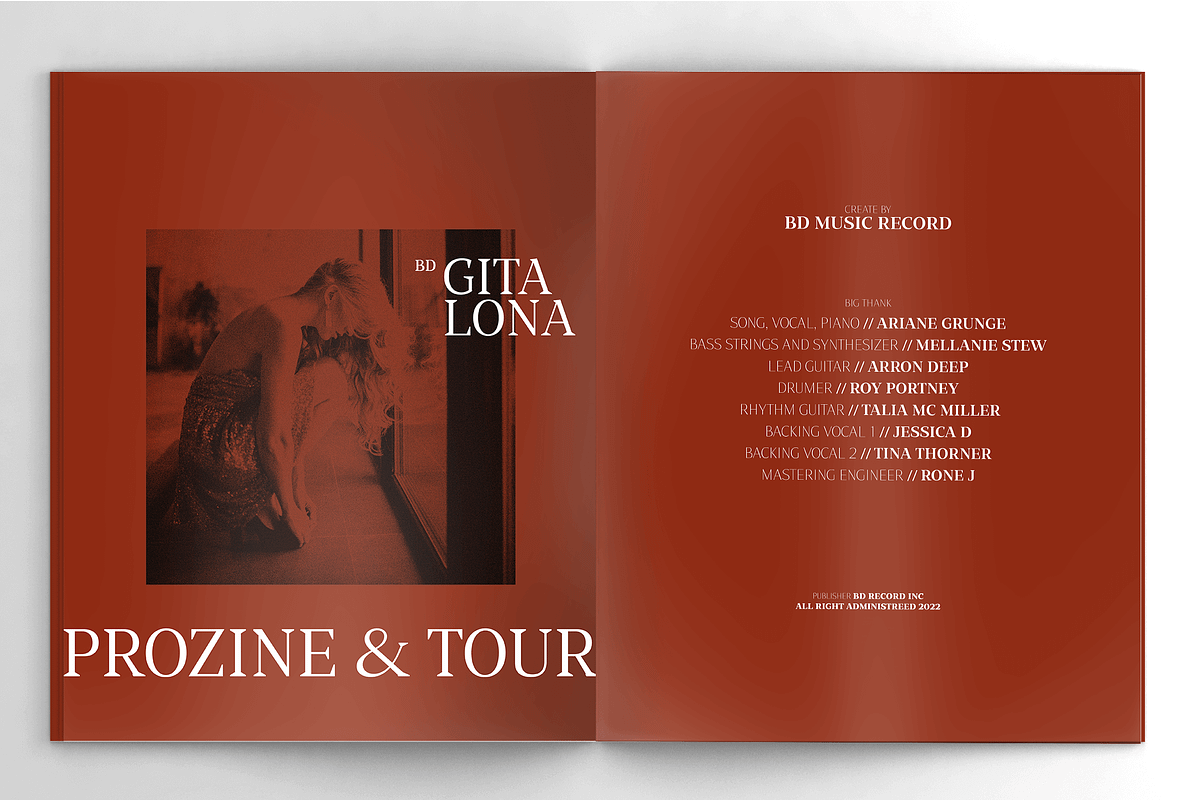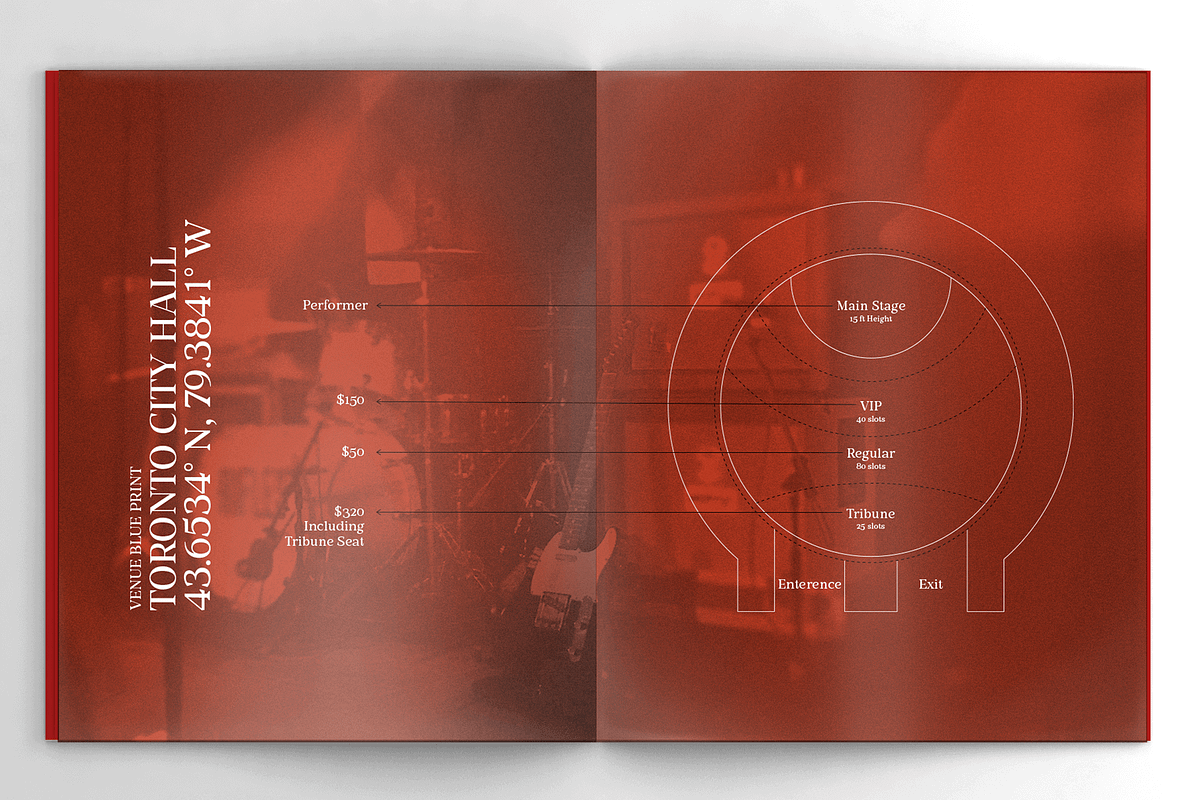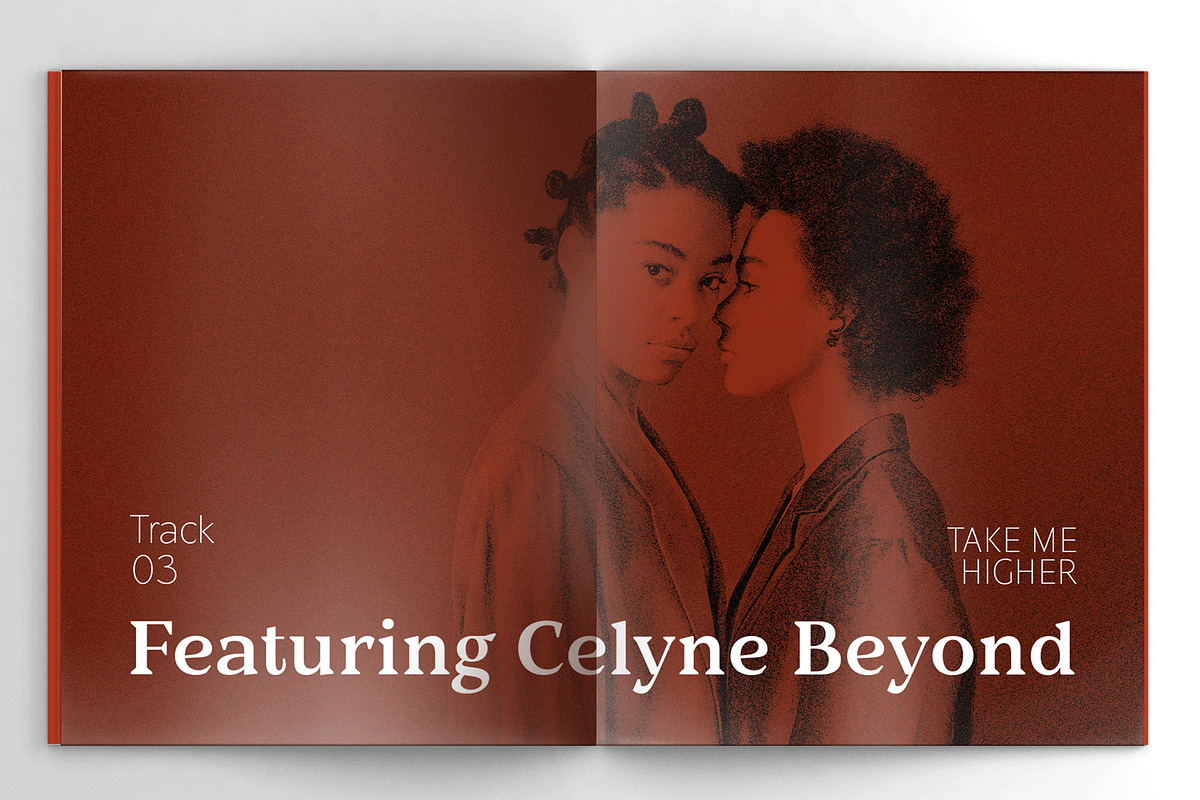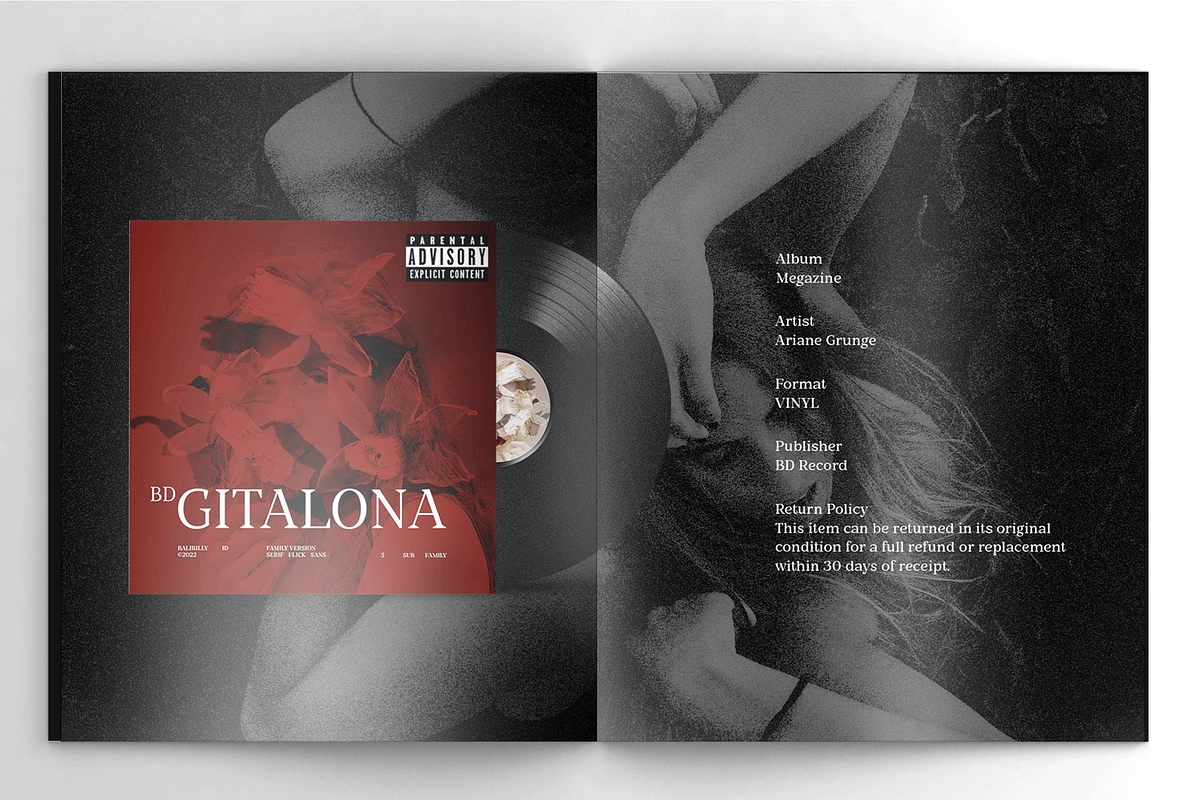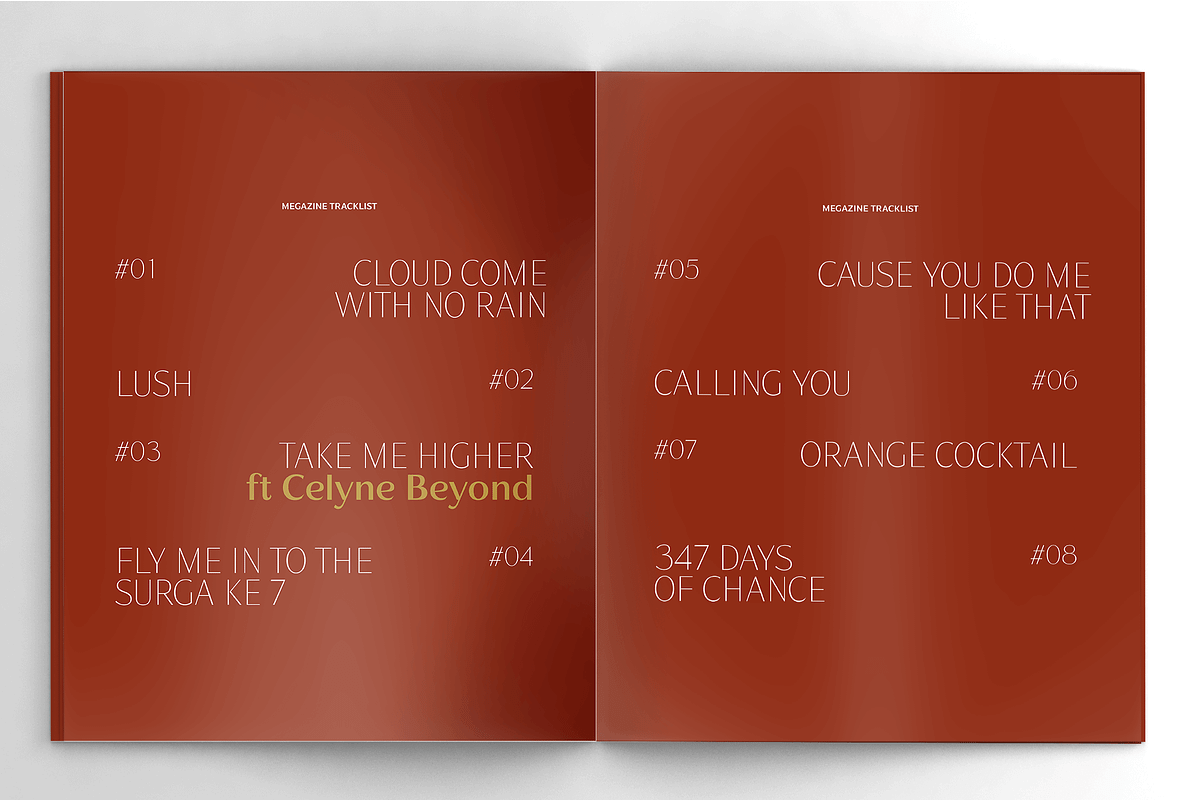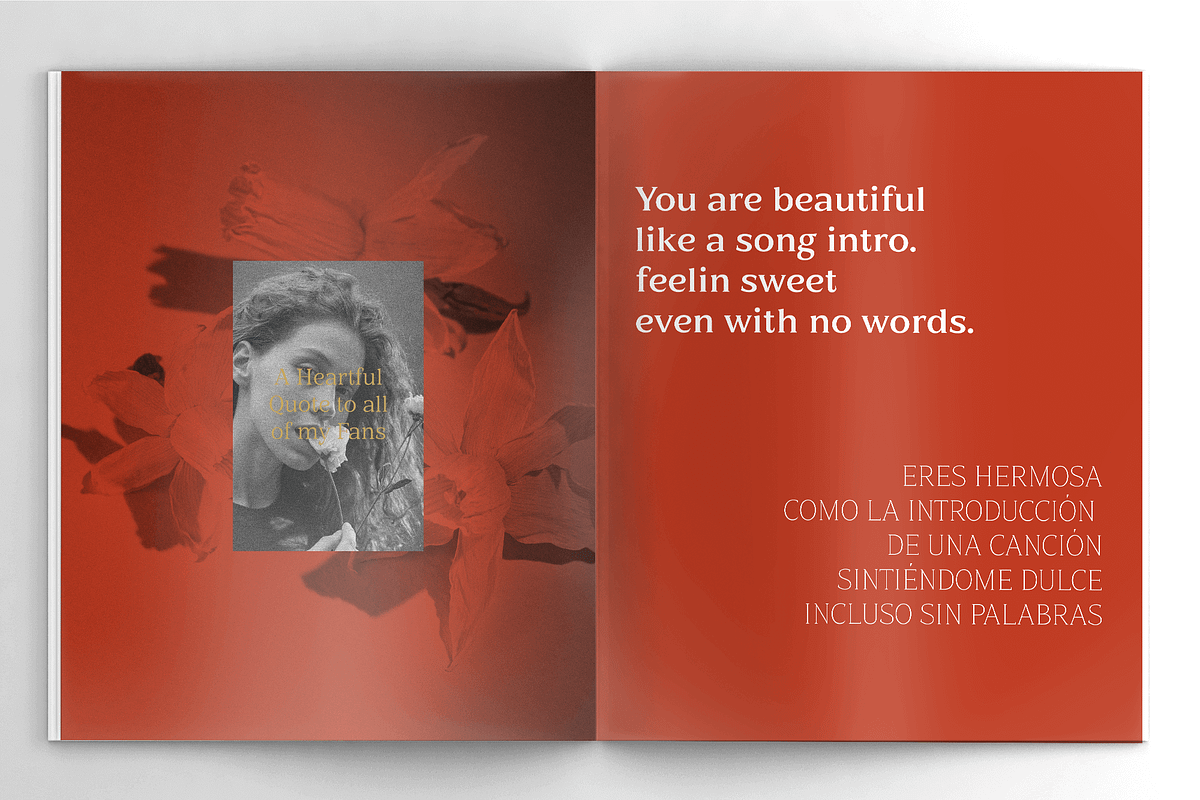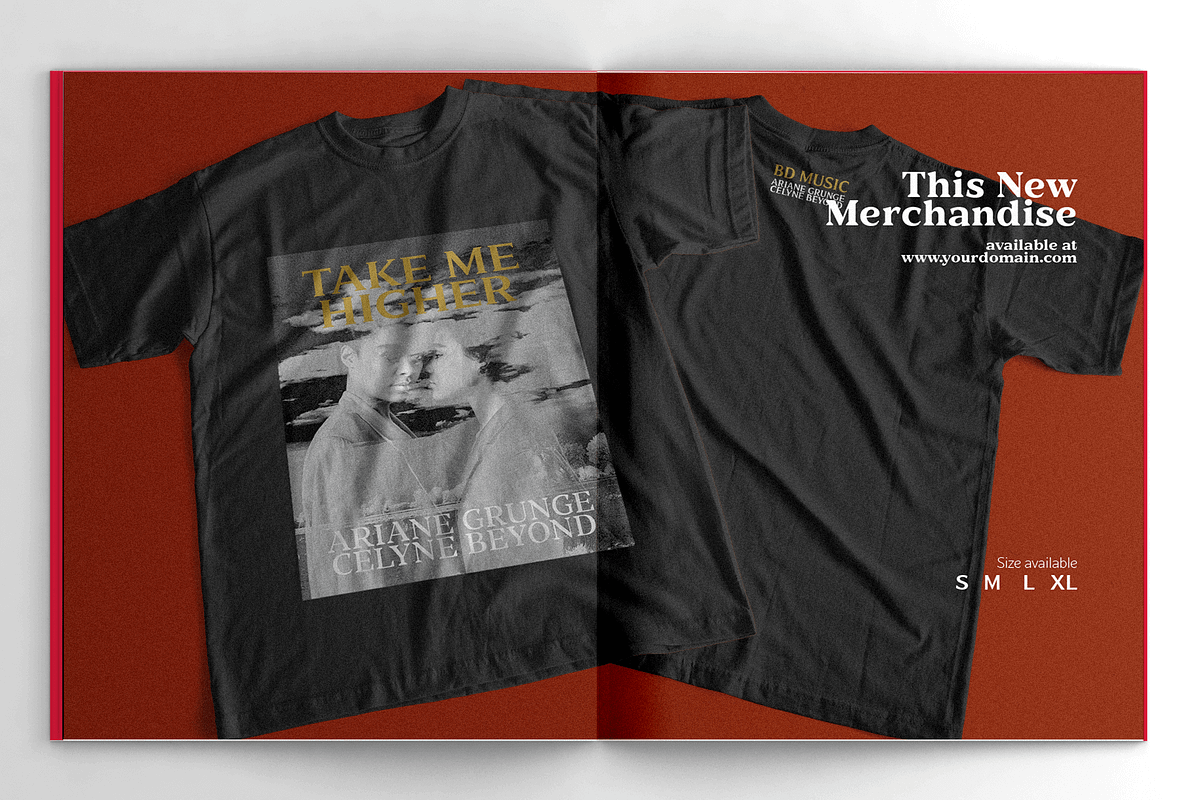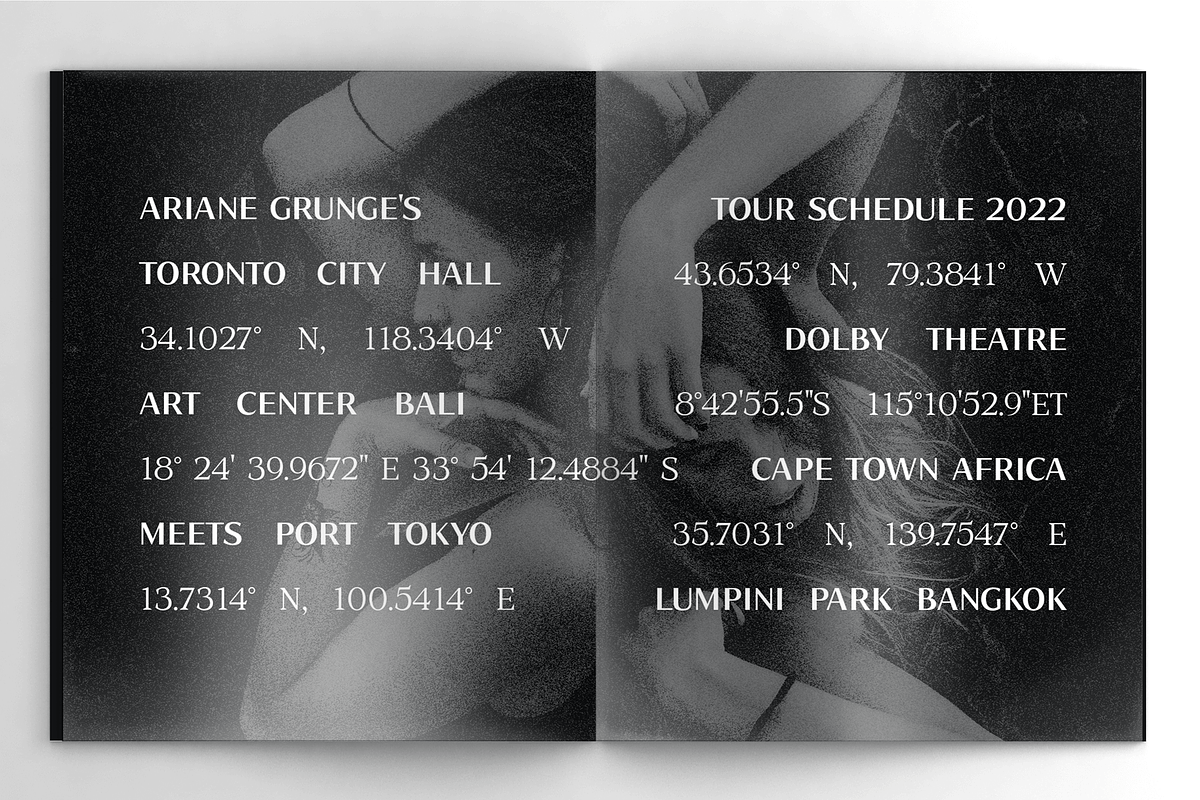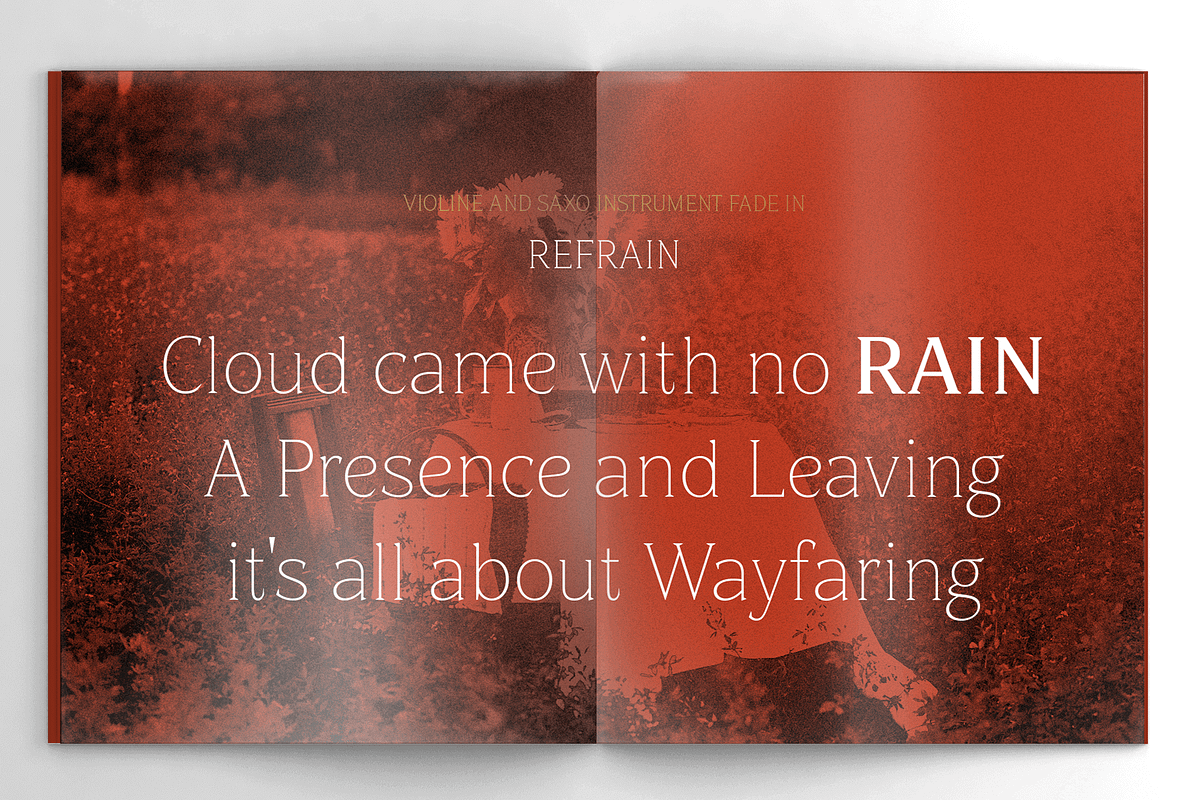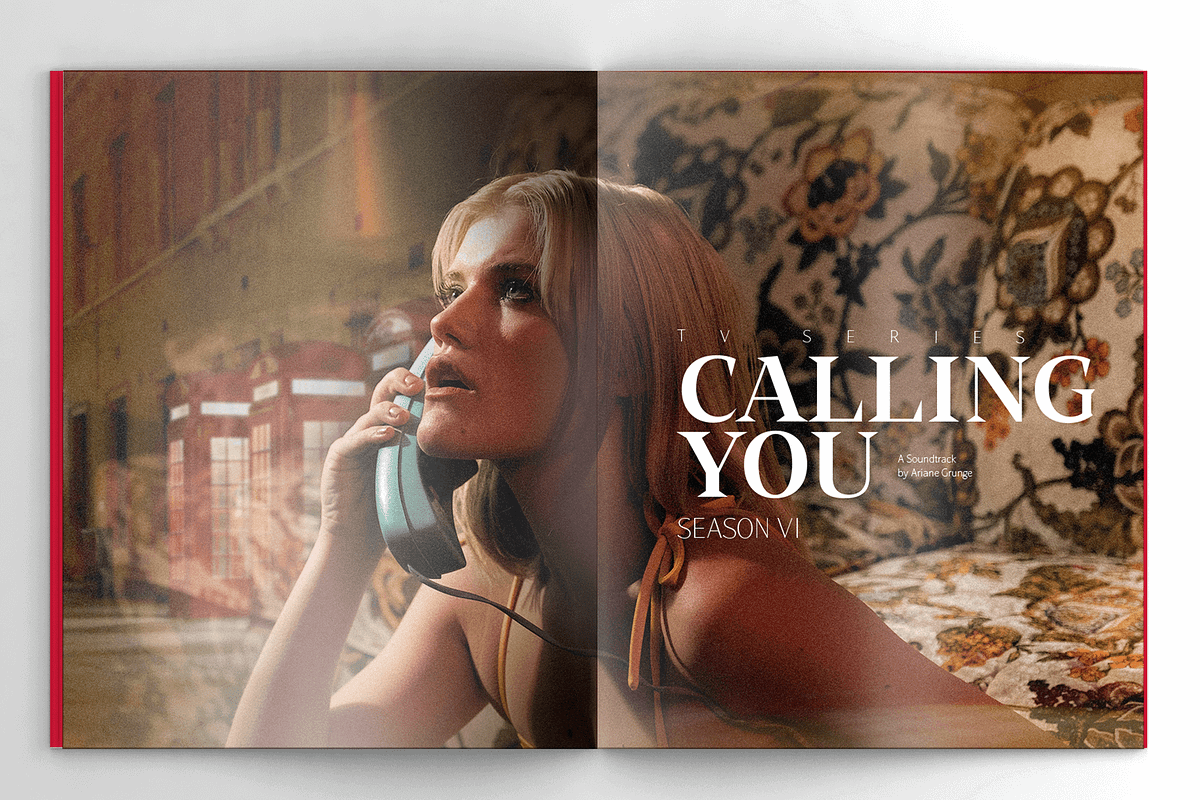
BD Gitalona
We introduce our high-complex typeface. A wide range of serifs for text and display titles are divided into one prominent sub-family and four display sub-families. Comes shifted from serif to sans serif to fulfilling the completeness of this font family that we named BD Gitalona.
Inspiration
The world of entertainment moves non-stop. One by one, figures appeared and left. We expect to create something to entertain previous trends with packaging more relevant to the present. More specifically, we admire and are inspired by some of the world's leading and top singers with a segmented nature. We imagine so many figures that can affect every viewer. However, each artist or singer has a segment because almost all of them have characteristics.
The Design
The basic design of this typeface begins with a transitional serif shape with sharp, shapeless corners. Then in the middle of the invention, there was an opportunity to explore it further from the readability side by adding an optical variable that can adjust the serif thickness when used together between large, medium to paragraph text sizes for editorials. The shift from serif to sans-serif with the contrast initiated by the shift of the serif family form as a different variable also makes this font richer in terms of the features it contains. Parts are expected to add to the user satisfaction with the complexity of this font.
The Features
BD Gitalona consists of one sub-family intended for body text with nine weights from Thin(100) to Black(900) and four other display sub-families such as Display serif, Flick, Harmony Sans and Contrast Sans. Each consists of four weights Thin(100), Regular Weight(400), Bold(700), and Black(900).
A total of 700+ glyphs in each style. Advanced OpenType features functionally and aesthetically, such as Case-sensitive forms, small caps, standard and discretionary ligatures, stylistic alternates, ordinals, fractions, numerator, denominator, superscript, subscript, circled number, slashed zero, old-style figure, tabular and lining figure. Supports multi-languages including Western Europe, Central Europe, Southeast Europe, South America, and Oceania.